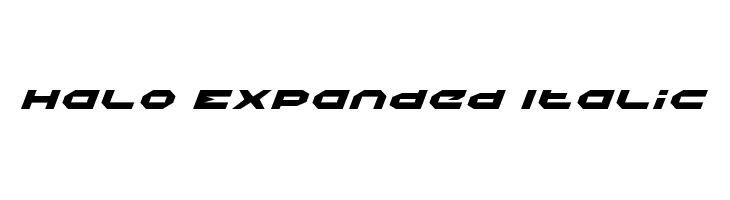
A bold, angular font with a geometric and dynamic style.
A bold, geometric font with a three-dimensional, graffiti-inspired style.
A bold, angular font with a modern blackletter style.
A bold, angular font with a dynamic, geometric style.
A bold, brush-style font with dynamic and expressive strokes.
A bold, geometric font with a modern, structured design.
A lively, handwritten font with flowing, cursive-like strokes.
A playful, handwritten font with tall, narrow letters and fluid strokes.
A bold, italicized 3D font with a modern, angular design.
A bold, geometric 3D font with a modern and dynamic style.
A bold, italic, and dynamic font with a modern, edgy style.
A bold, outlined font with a geometric, three-dimensional style.
A bold, condensed font with a strong, geometric style.
A bold, condensed, and italic font with a dynamic and modern style.
A bold, Gothic-inspired font with sharp angles and dramatic presence.
A bold, expanded italic font with a modern and dynamic style.
A bold, extra-expanded decorative font with angular, geometric shapes.
A bold, extra-expanded italic font with a modern, dynamic style.
A bold, italic font with sharp angles and high contrast, perfect for dynamic designs.
A bold, left-slanted font with a dynamic and energetic style.
A bold, geometric font with tall, narrow characters and sharp angles.
A bold, slanted font with a dynamic and modern geometric style.
Bold, italicized font with a shadow effect and dynamic style.
A bold, geometric font with a shadow effect for a modern, 3D look.
A bold, playful font with thick outlines and a cartoonish style.
A bold, textured font with a dynamic, brush-like appearance.
A cursive, elegant font with a handwritten style and smooth, flowing letters.
A bold, textured font with a distressed, grunge-like appearance.
A bold, playful handwritten font with thick strokes and rounded edges.
A playful, Halloween-themed font with hand-drawn, brush-like letters.
A playful and elegant script font with flowing, cursive letterforms and high contrast strokes.
A playful, handwritten script font with elegant curves and a cohesive flow.
A dynamic and energetic script font with fluid, cursive strokes.